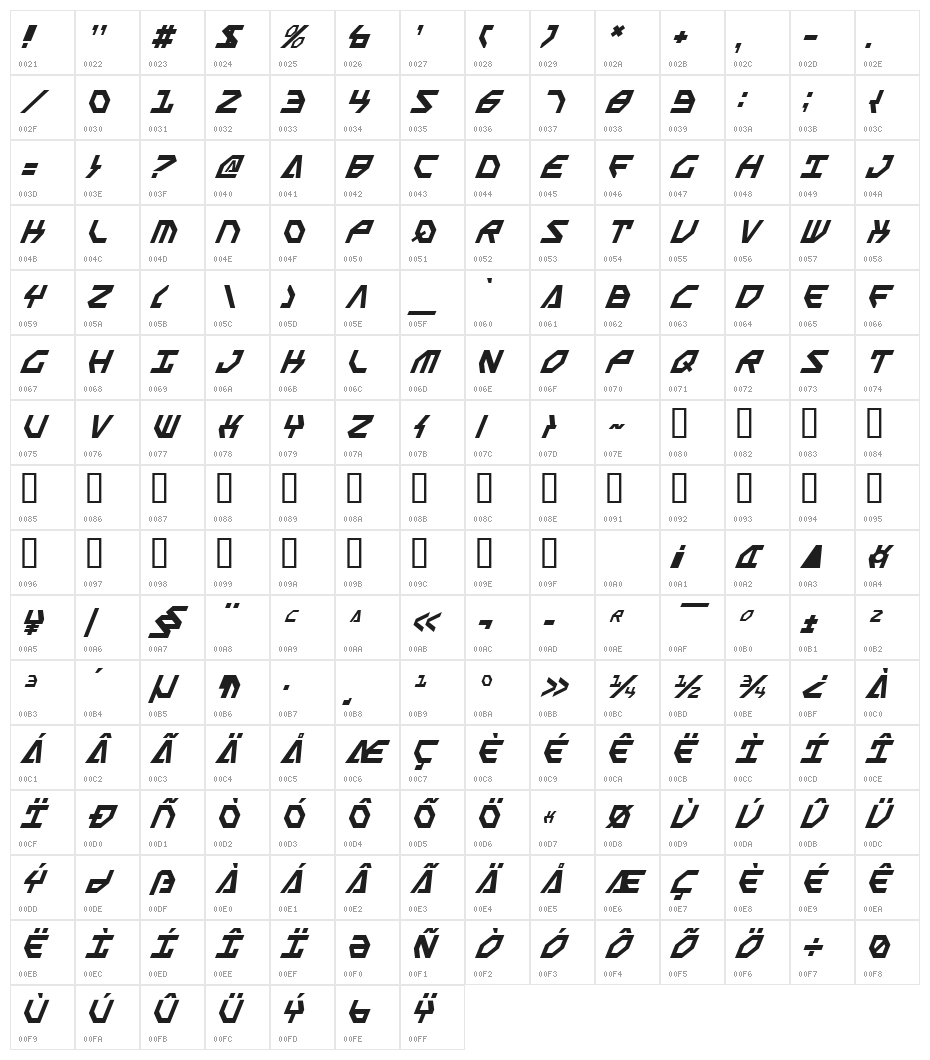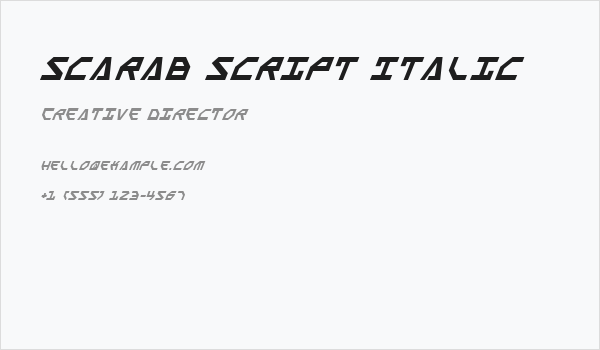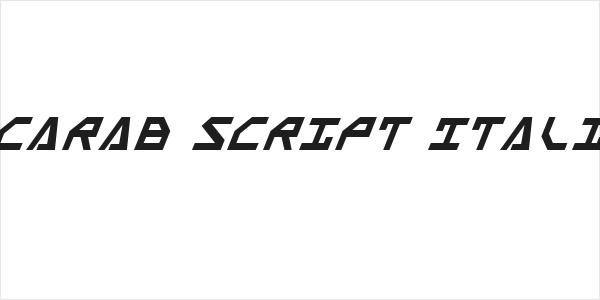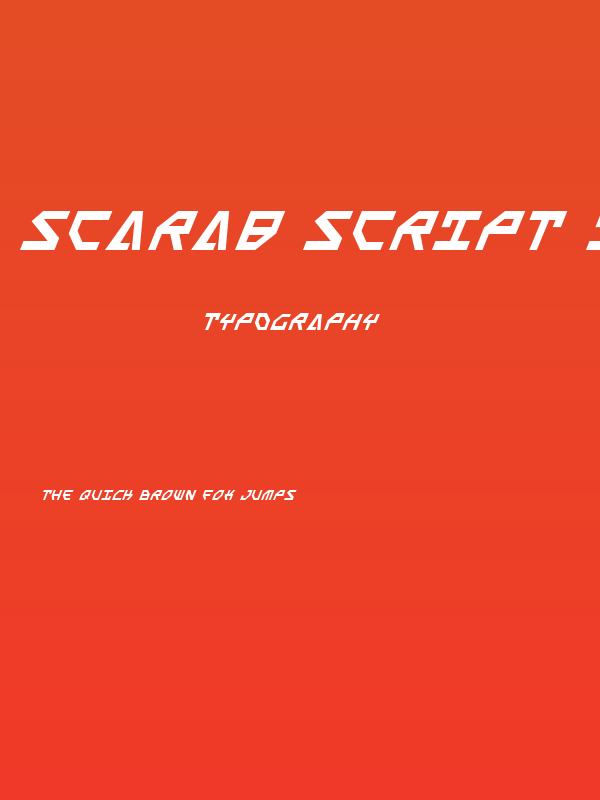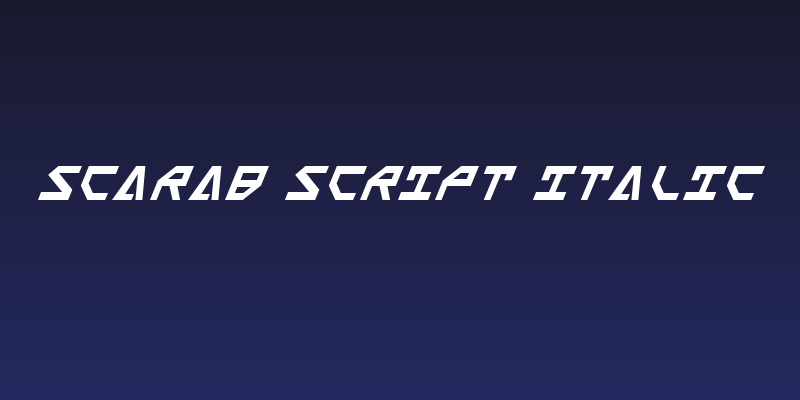
Scarab Script Italic Font
Scarab Script Italic Description
This font features a bold and angular design with a futuristic and geometric aesthetic. The characters are sharply defined with distinct edges, giving them a dynamic and energetic appearance. The italic slant adds a sense of motion and speed, making it suitable for modern and tech-oriented themes. The uppercase and lowercase letters maintain a consistent style, with numbers and special characters following the same angular motif. This font's unique style makes it stand out, perfect for projects that require a bold statement.
| Proposed Projects | Ideal for tech branding, sci-fi posters, video game titles, and modern advertising. |